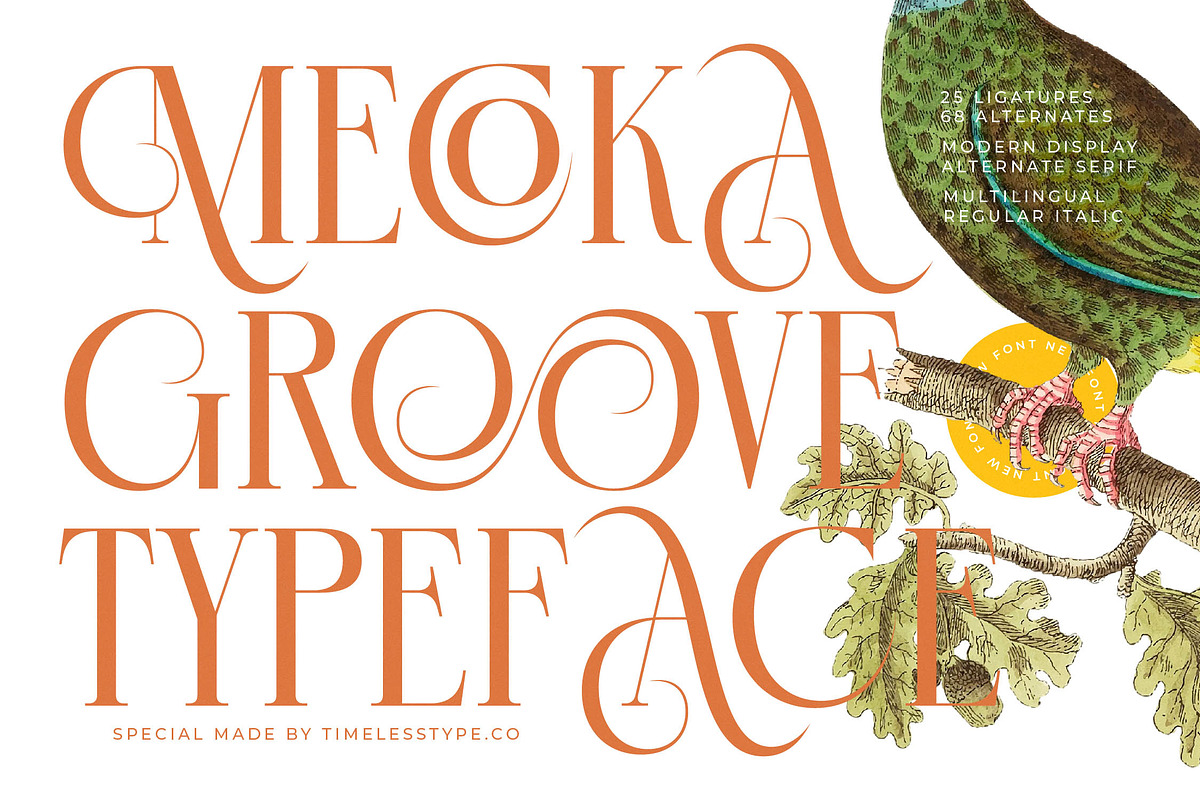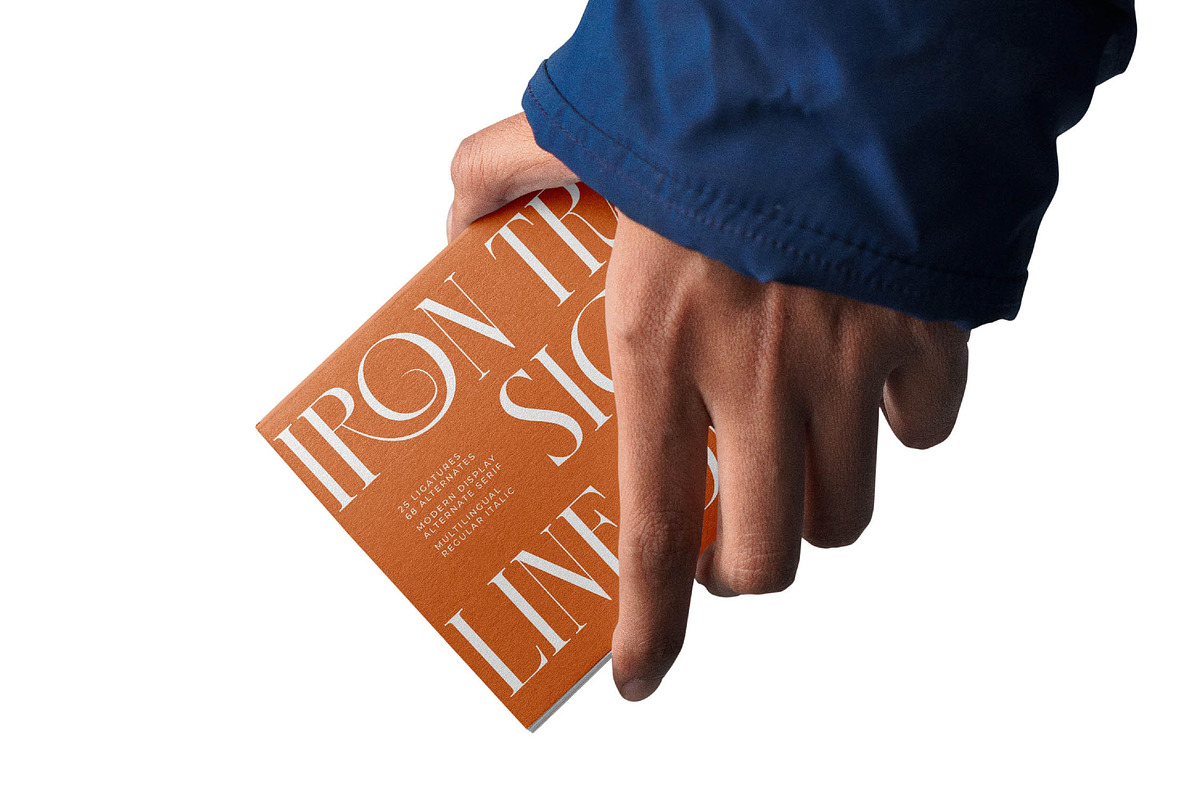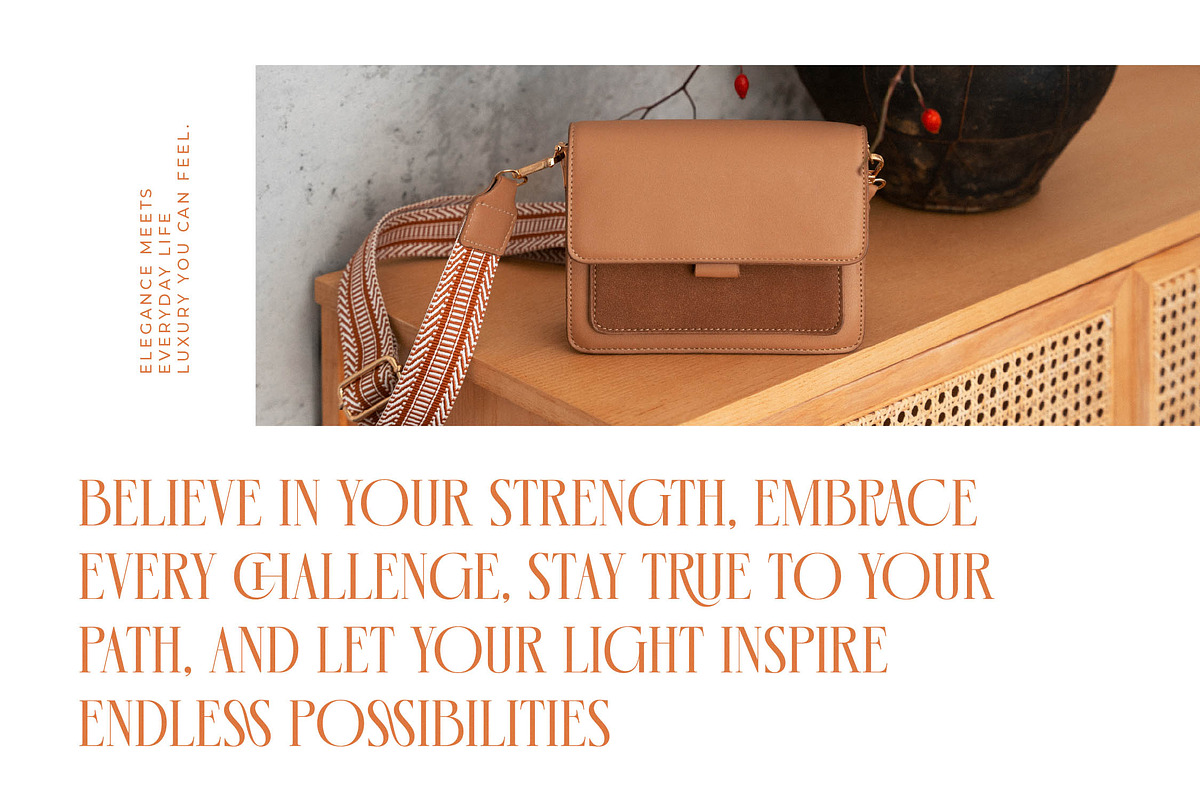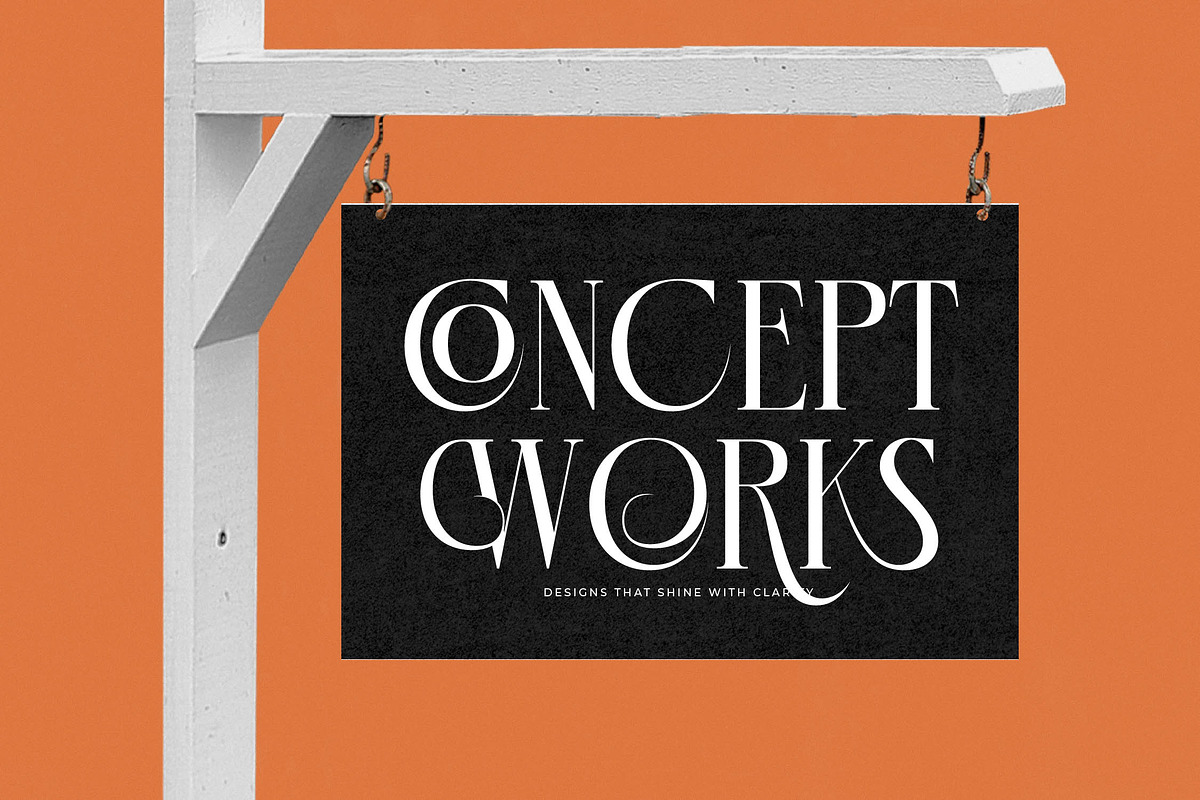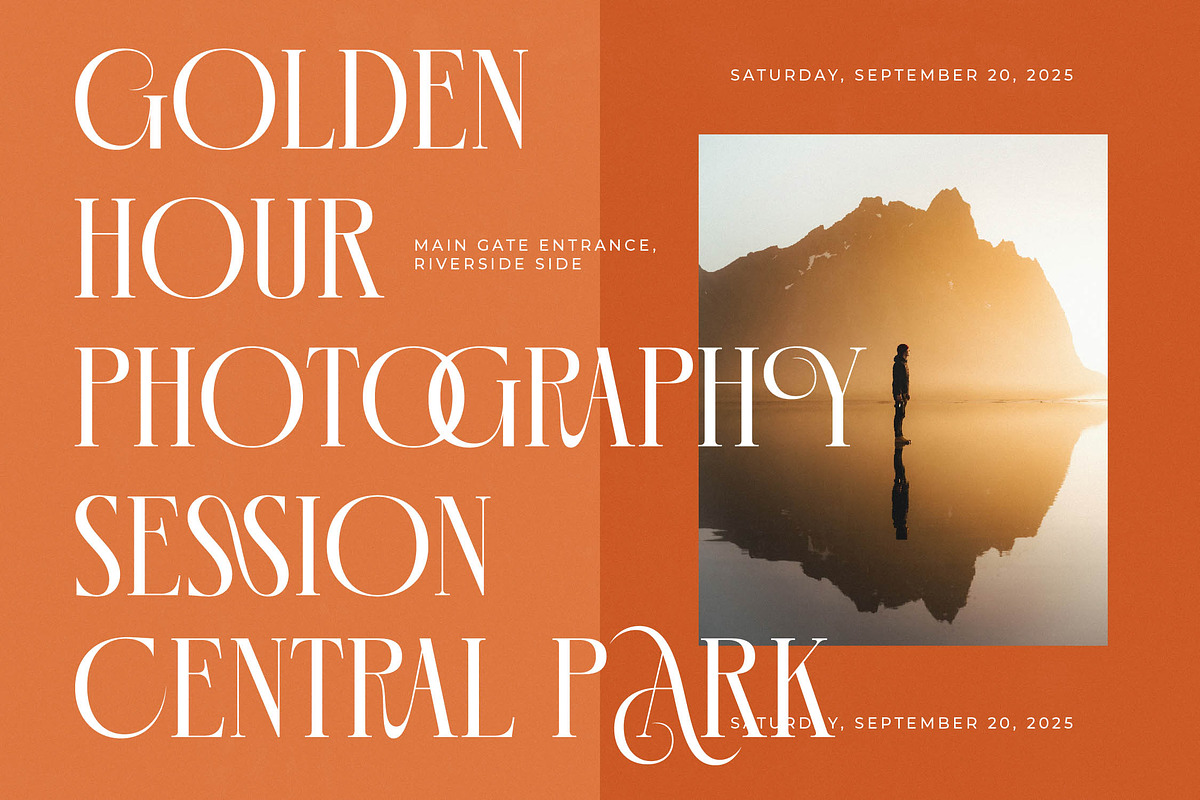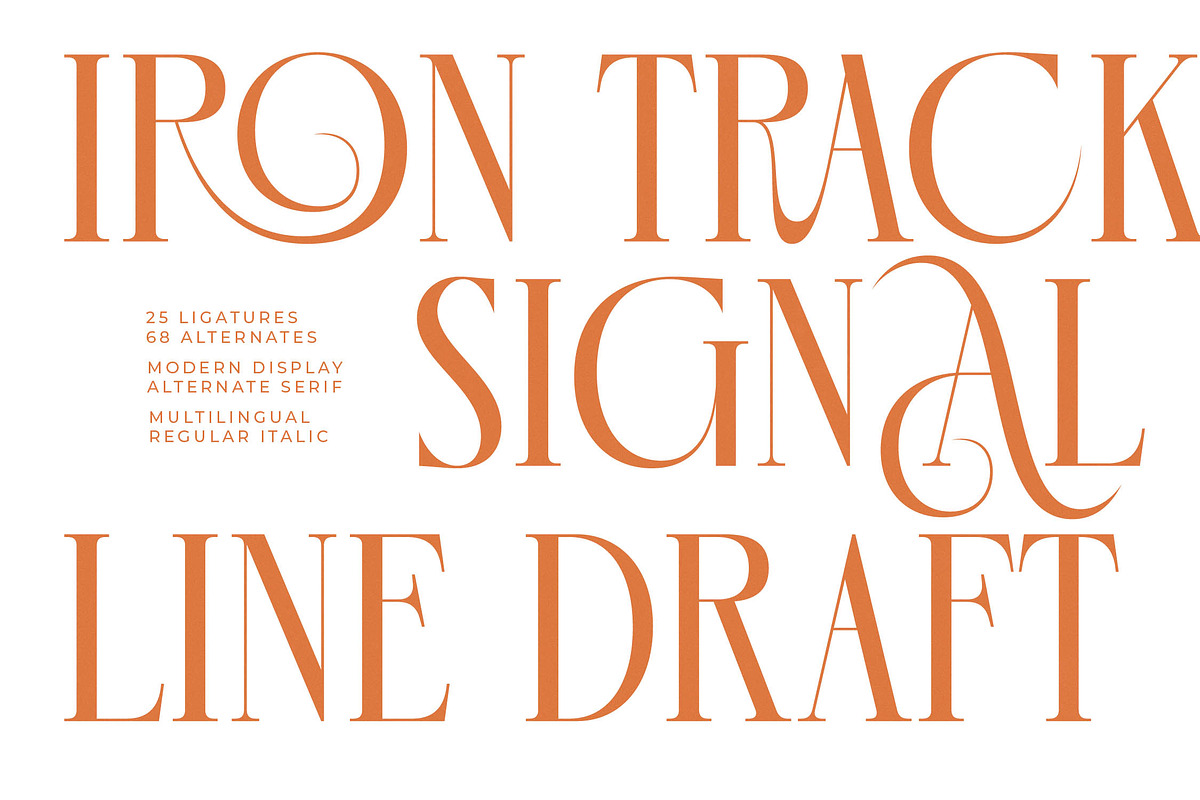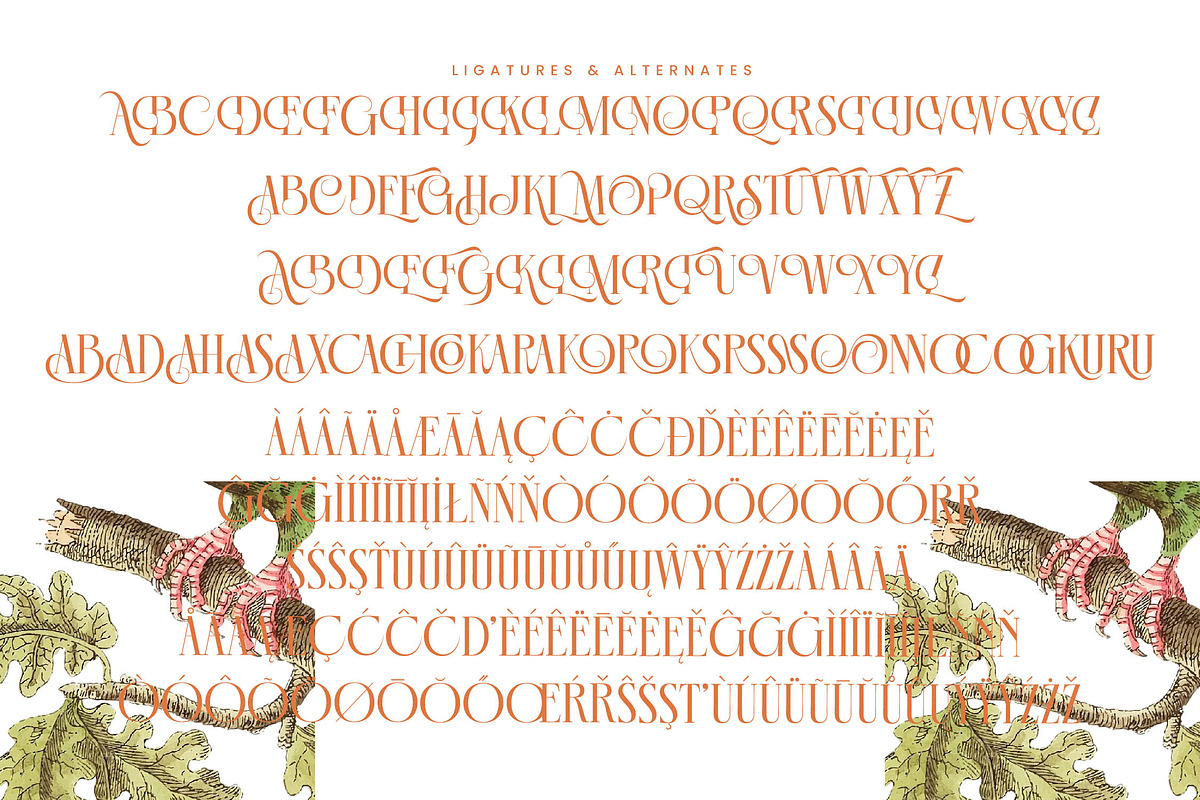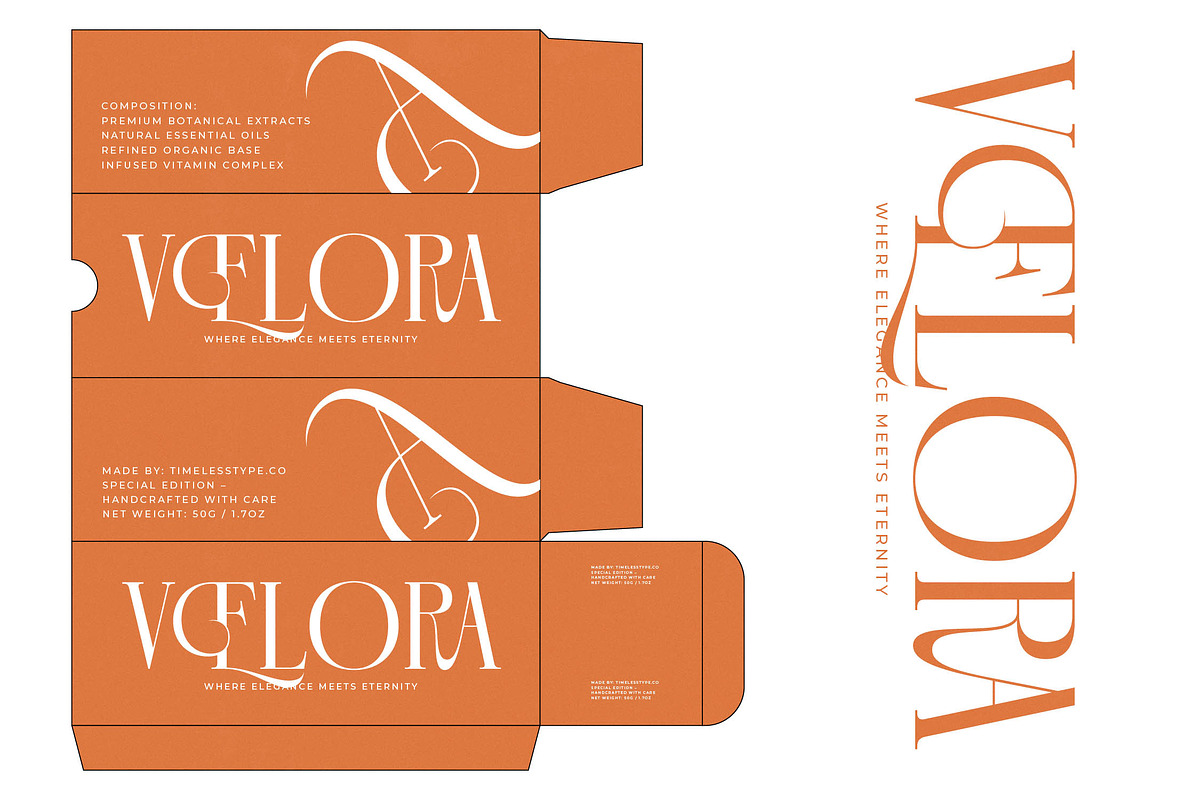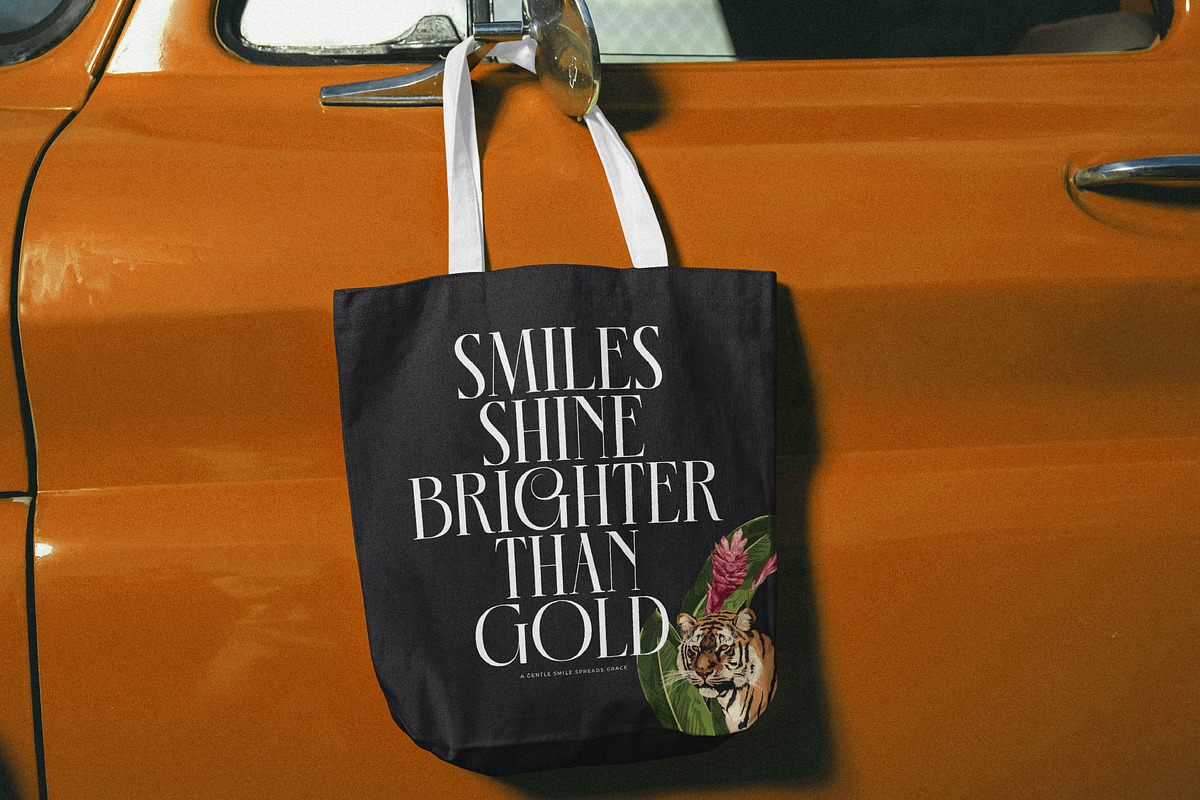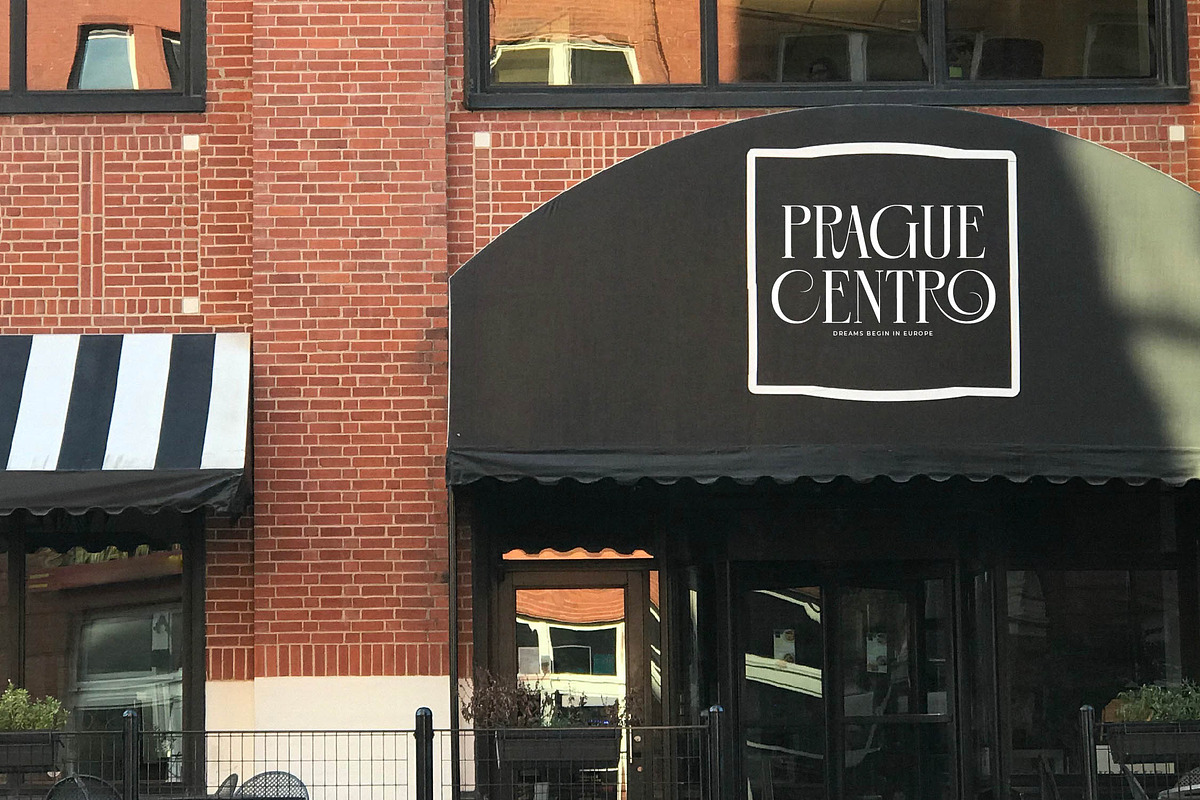
Mecoka Groove Elegant Serif Font
Introducing Mecoka Groove, a font that dances between timeless elegance and modern audacity to redefine your creative canvas. It is the perfect marriage of vintage charm and contemporary sophistication, designed to make your words sing.
Inspired by the rhythmic curves of botanical art and the soulful energy of 1970s typography, this typeface captures a sense of organic movement. Its design journey began with the desire to blend the fluidity of nature with the structured grace of classic Roman letterforms.
This modern serif display exudes an air of refined confidence, making it an essential tool for luxury typography. With its high-contrast serif strokes and theatrical flourishes, it serves as a powerful editorial font that ensures an unforgettable branding impact in every layout.
Perfectly aligned with the current modern serif trend, this typeface meets the demand for editorial display fonts that feel both nostalgic and forward-thinking. It embraces the shift toward character-driven typography, offering designers a way to inject soul and personality into digital and print media alike.
Whether you are crafting a high-end logo design or developing a cohesive branding system, this font adapts beautifully to any high-stakes project. It is a premier choice for editorial layouts, boutique packaging, sophisticated wedding stationery, and the fast-paced world of high fashion.
Unlock creative potential with 25 unique ligatures and 68 stunning alternates that offer endless customization. This set includes decorative swashes and full multilingual support with international characters to bring professional polish to every global design project.